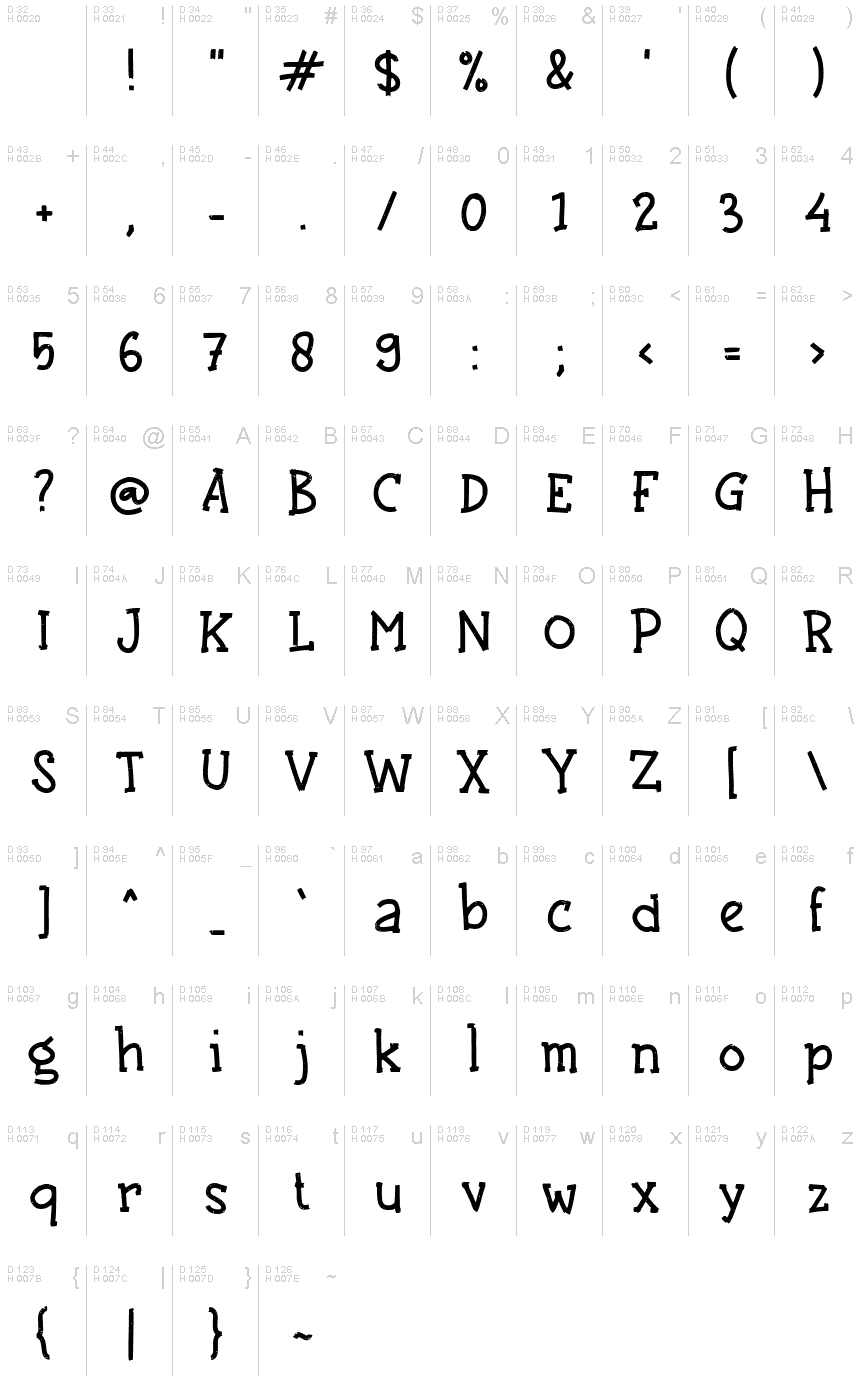
Esensi Hukum
Esensi Hukum, a display font designed by wep, boasts a captivating blend of elegance and minimalism. With its semi-light weight, this font exudes sophistication and grace, making it ideal for projects that require a touch of refinement. Whether designing sleek logos or crafting eye-catching headlines, Esensi Hukum's distinctive letterforms add an air of professionalism to any project. Perfectly suited for branding materials, magazine layouts, or even website headers, this font will elevate your designs to new heights. Embrace the versatility of Esensi Hukum and let your creativity soar.